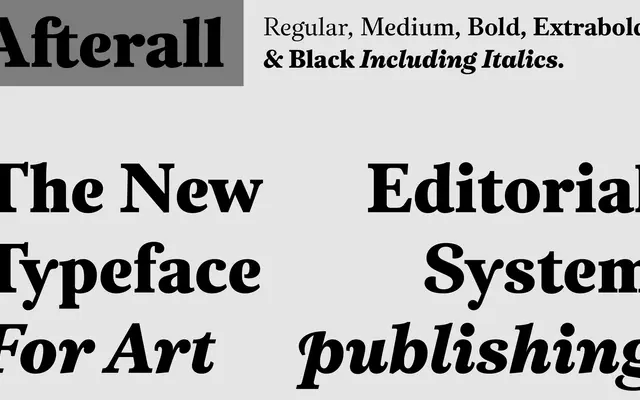
Afterall
A text serif originally commissioned for the Afterall Journal and One Work book series, released publicly by A2-Type after an extensive editorial redesign.
Conceived as part of A2/SW/HK's redesign of the Afterall Journal and its accompanying One Work series, the family runs across five weights from Regular to Black, each with a matching italic. The design prioritises legibility at text sizes for long-form essays and features, while subtle quirks and flourishes emerge at display scales. Five weights give it enough range to handle hierarchy within a considered editorial system.
Designed primarily for long-form editorial text in a journal and book series context, with subtle quirks and flourishes becoming more apparent at display sizes — characteristic of a humanist text serif.